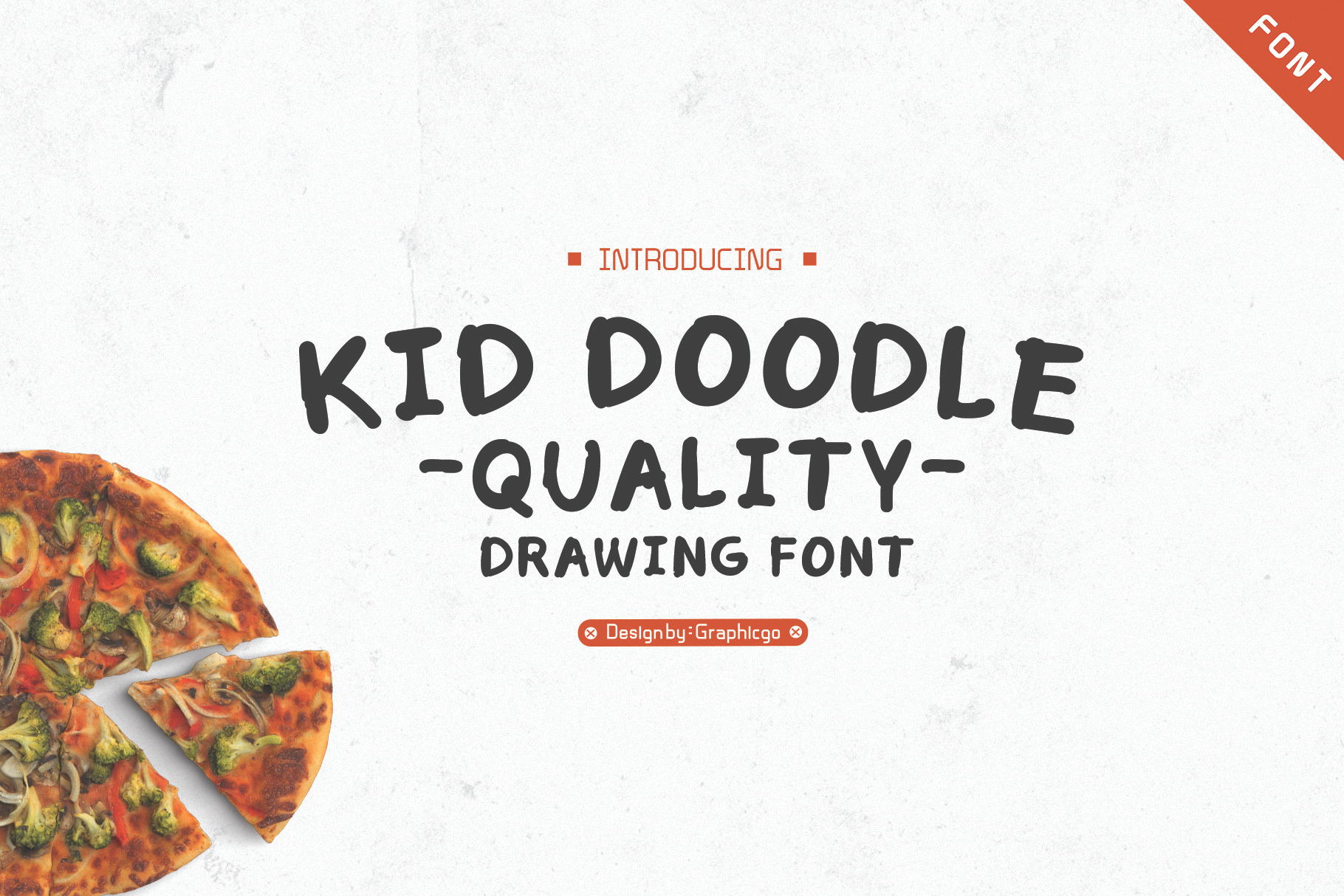
Kid Doodle Font
Kid Doodle Font is hand drawn bold brush funny style. It 's perfect for cards, posters, wall art, branding, diy projects, greeting cards, labels, quotes, packaging, websites and much more.